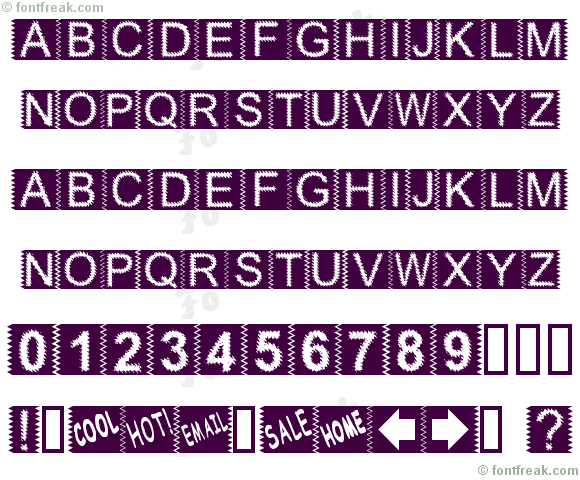
Zacken Normal
About Zacken
Zacken is a distinctive decorative font designed by Dieter Schumacher in 1998 and offered as freeware by Fontmaker. This font falls into the category of display typefaces, characterized by its unique zigzag pattern that adds an energetic and playful touch to any project. The Zacken font features a medium stroke weight and a consistent level of contrast, making it visually engaging while remaining readable. The spacing between the letters is thoughtfully arranged, ensuring clarity without sacrificing its artistic flair.
The Zacken font is particularly well-suited for a variety of creative applications. It works beautifully for event promotional materials, such as concert posters or festival banners, where its bold aesthetic can draw attention and convey excitement. It can also enhance the visual appeal of restaurant menus, where a lively font can reflect the establishment's vibrant atmosphere. Additionally, this font is an excellent choice for children's books or playful brand identities, where a touch of whimsy is desired. Graphic designers and content creators looking to infuse their projects with a sense of fun and originality will find Zacken to be an invaluable resource.
Zacken stands out not just for its striking appearance but also for its versatility. This font makes a strong statement while maintaining an approachable quality, allowing it to complement a range of themes and styles. Whether you're developing a logo, crafting promotional materials, or designing digital content, the Zacken font free download offers an exciting option that can elevate your work. With its unique zigzag elements and lively character, Zacken is sure to leave a lasting impression on your audience.